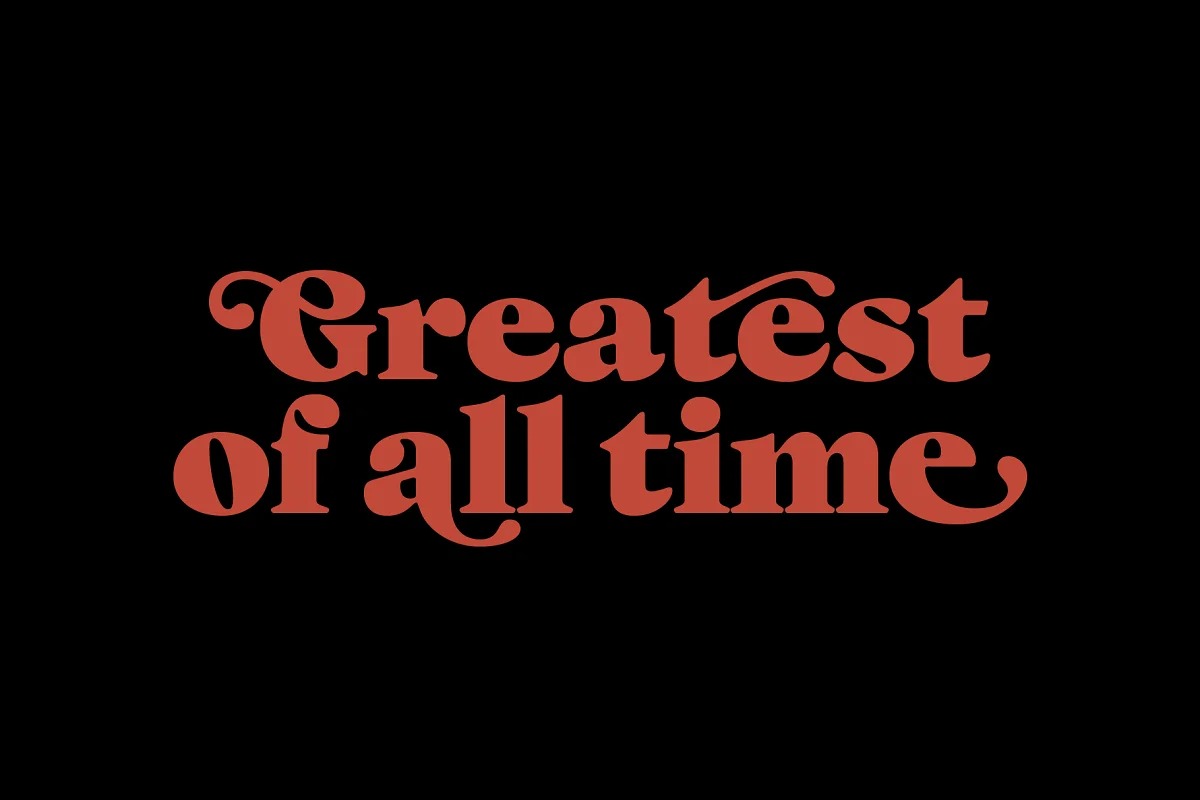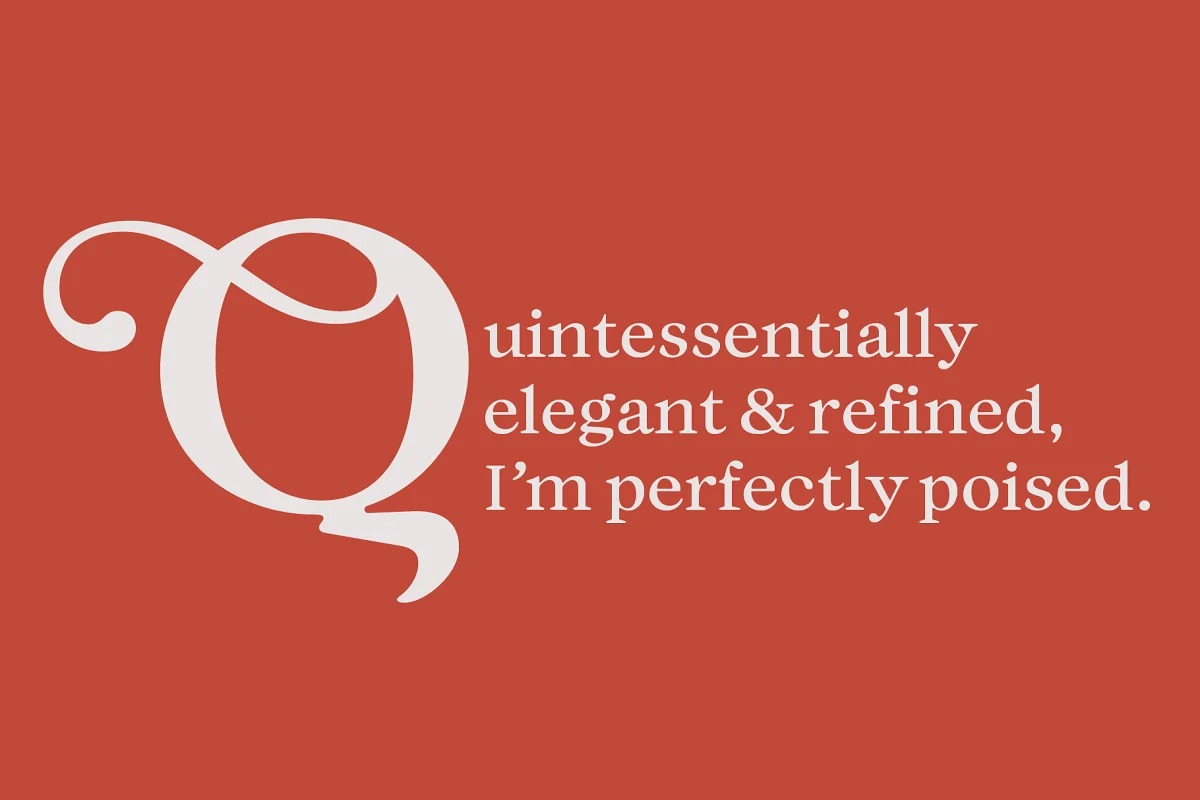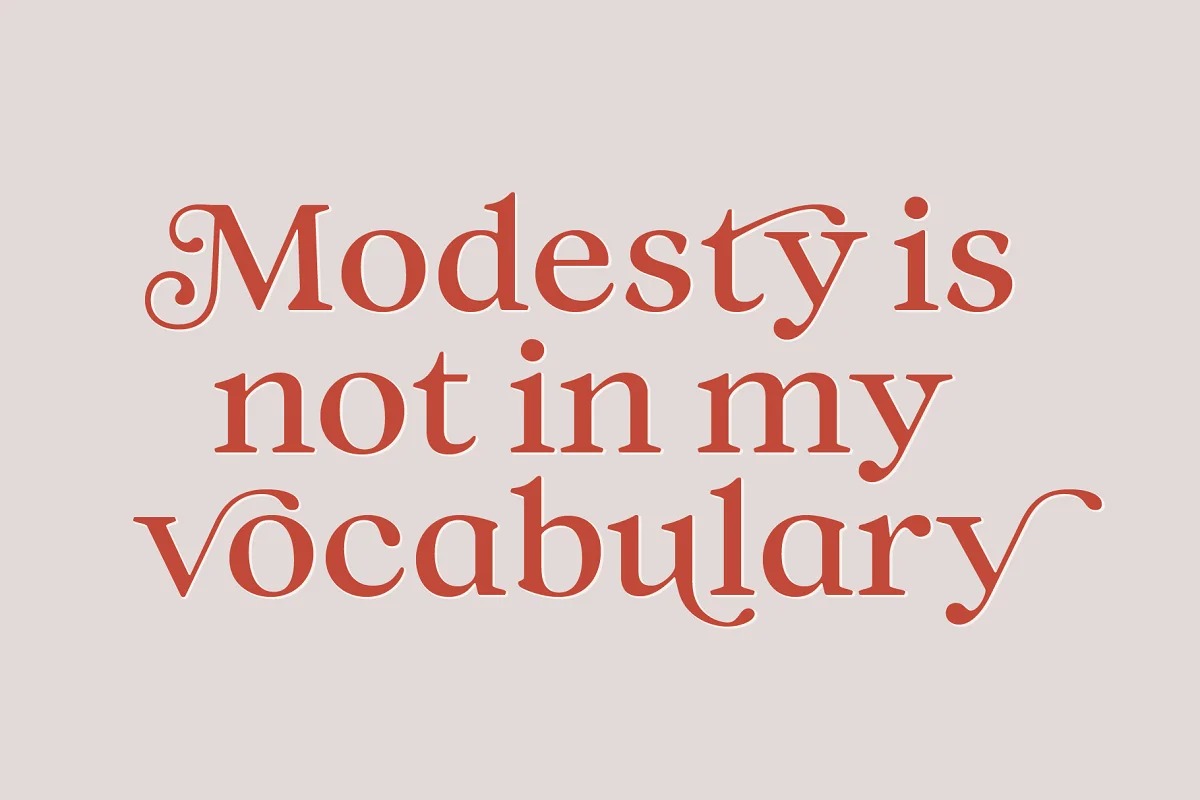
Audacious Font Family
Audacious Serif Font
It’s a stylish serif font crafted & designed by GoodePhotography. It has a modern and retro look – clear, modern and fun. This attention-grabbing typeface has an imperfect nature that embraces its quirks and irregularities, giving each font a distinctive and somewhat oddball personality. Its defining characteristics include large open counters, awkward stresses, large exaggerated wedge serifs, and voluptuous teardrop terminals.
Whatever typographic compositions you create, Audacious will demand attention, making it perfect for titling, headlines, logotype, and branding projects. Take advantage of the 182 stylistic alternates to embellish your type and add that touch of class to titles and logos. This typeface works really well with close line spacing and stunning headlines are a breeze to create. The regular weight offers a pleasant reading experience – ideal for long-form reading.